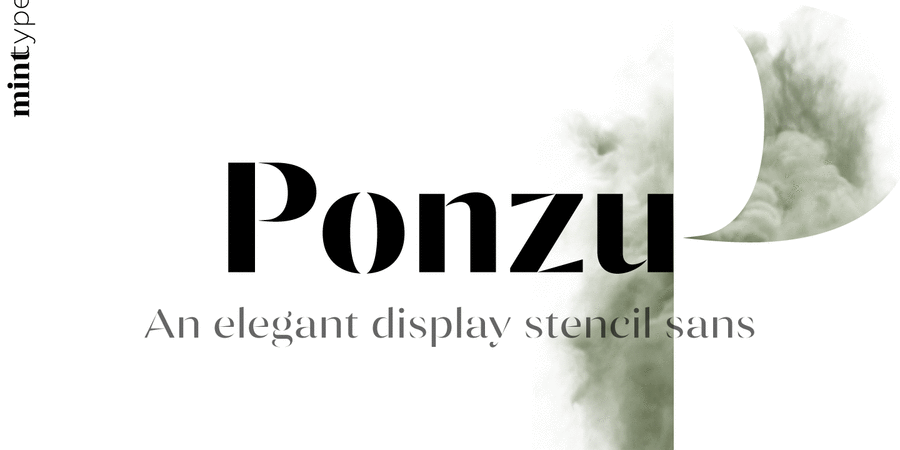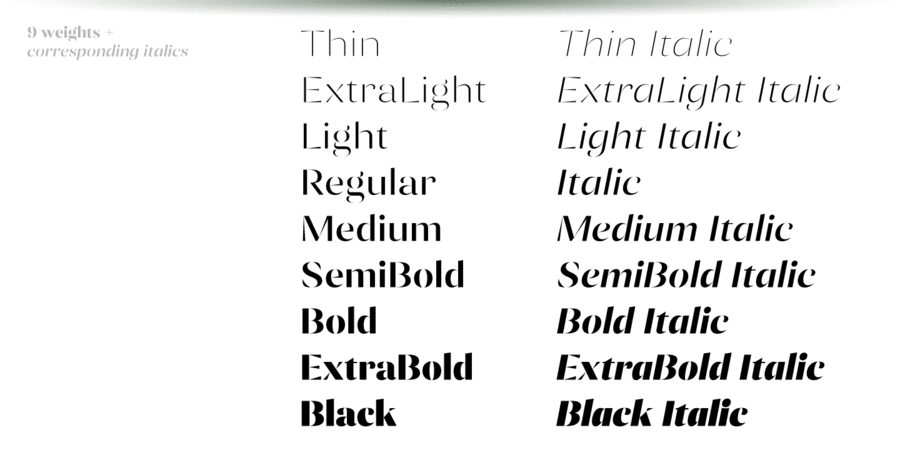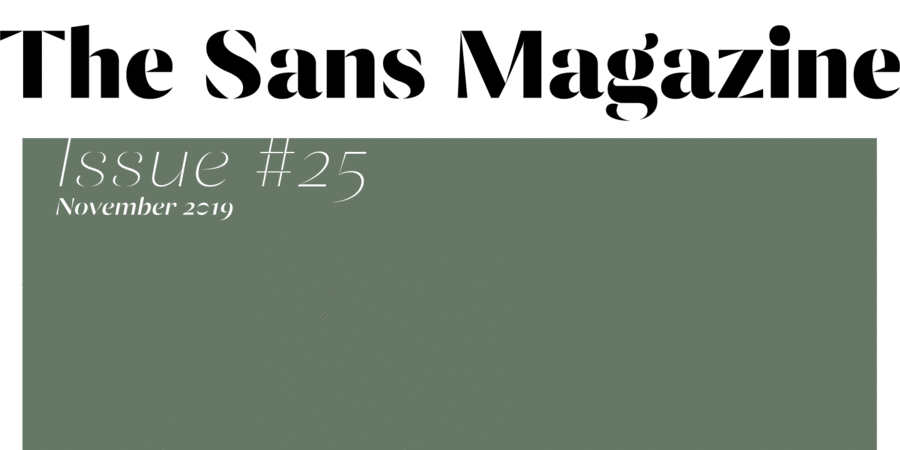
Ponzu is an elegant stencil-style display sans-serif. Its shape is defined by the sharp endings created by stems that vanish in infinite contrast. It is a hybrid typeface that features beautiful terminals typical for serif fonts. It is perfect for display use in editorial, branding, posters, screen applications etc. Ponzu comes in 9 weights each with complimentary stylish italics. Each style supports multiple languages including Cyrillic script and is packed with OpenType features. The typeface was designed and released by Andriy Konstantynov in Mint Type foundry in 2019.